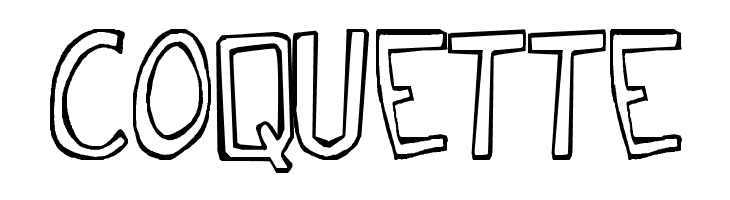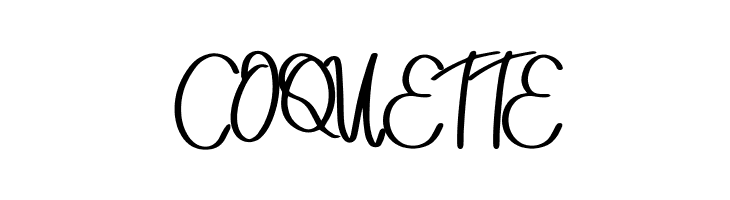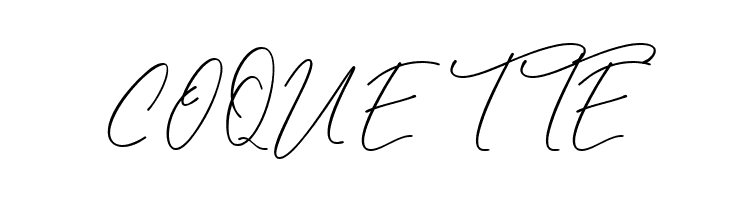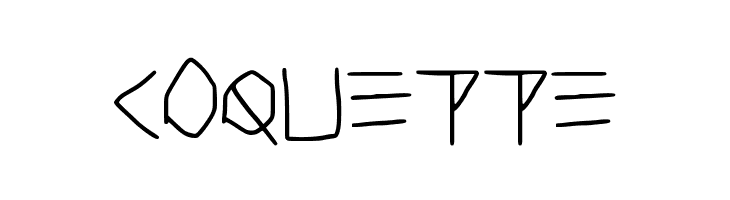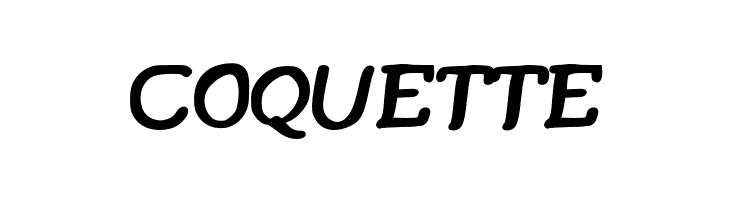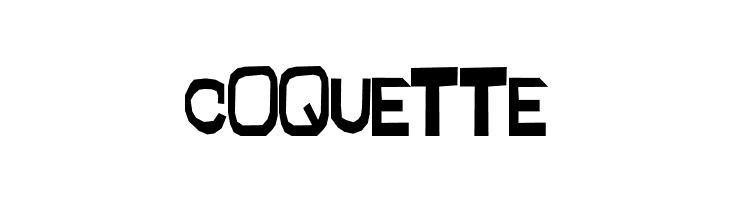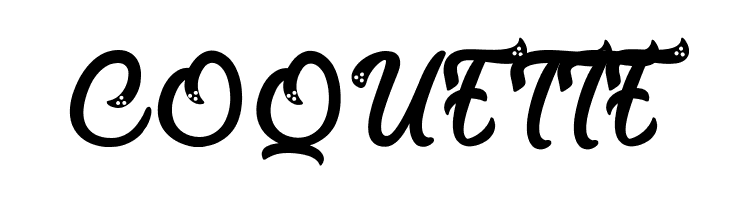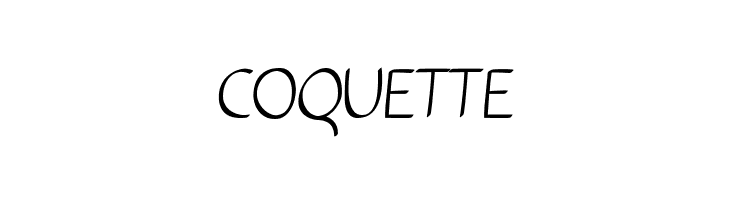
A modern, elegant font with slanted, flowing letterforms and consistent style.
A modern, elegant font with clean lines and balanced structure.
( Dysa is a Sephraxian Support font. This font can be both used for ornate logo design and whiteboard-inspired art, or also for giving your next hobby project something that makes your friends go mad and zany. )
A playful, hand-drawn font with thin, irregular strokes and a whimsical style.
A playful script font with dotted patterns and a whimsical style.
A playful, bold handwritten font with rounded edges and a friendly vibe.
A playful and energetic script font with fluid, connected letterforms.
A playful, hand-drawn font with a casual and informal style.